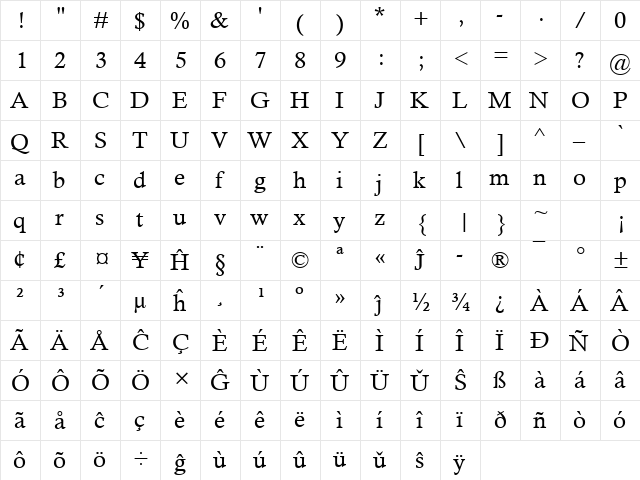
Calisto MT Eo Regular
Design Context for Calisto MT Eo Typeface
Calisto MT Eo is a composed and adaptable typeface that performs quietly and consistently across a wide range of design contexts.